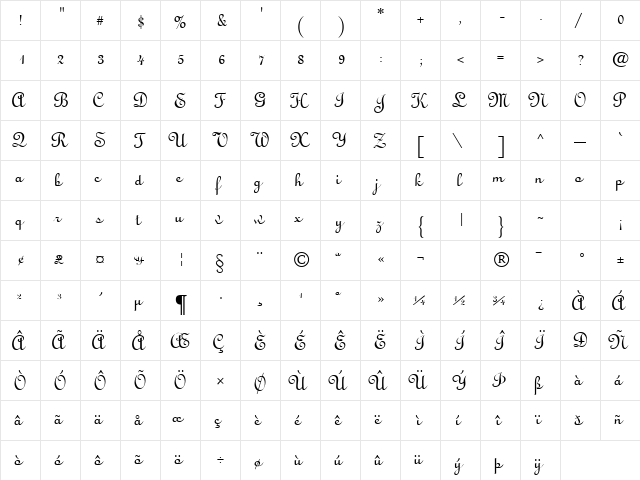
MonasteryScriptSSK Regular
Design Context for MonasteryScriptSSK Typeface
MonasteryScriptSSK flows with the natural rhythm of handwritten lettering, making it ideal for designs that call for warmth and personal expression.
Font Pairing: Combine MonasteryScriptSSK with a simple geometric sans for maximum contrast — the tension between flowing curves and clean structure is a classic typographic pairing.
Pro Tip: Pair MonasteryScriptSSK with a clean sans-serif for supporting text. The contrast between fluid script and geometric structure creates an elegant typographic hierarchy.